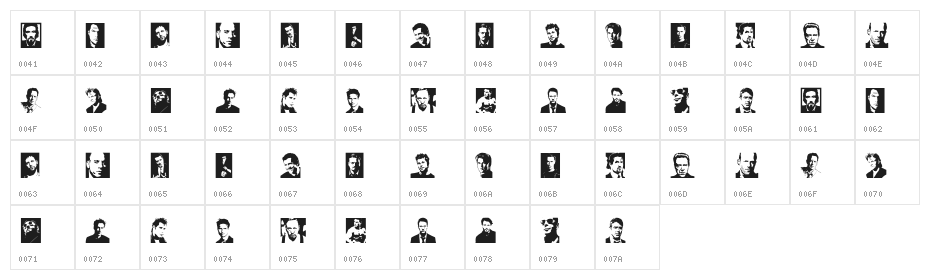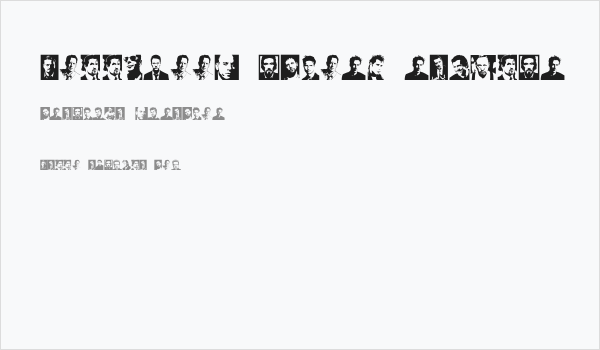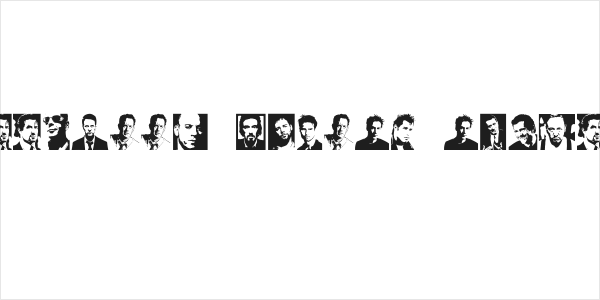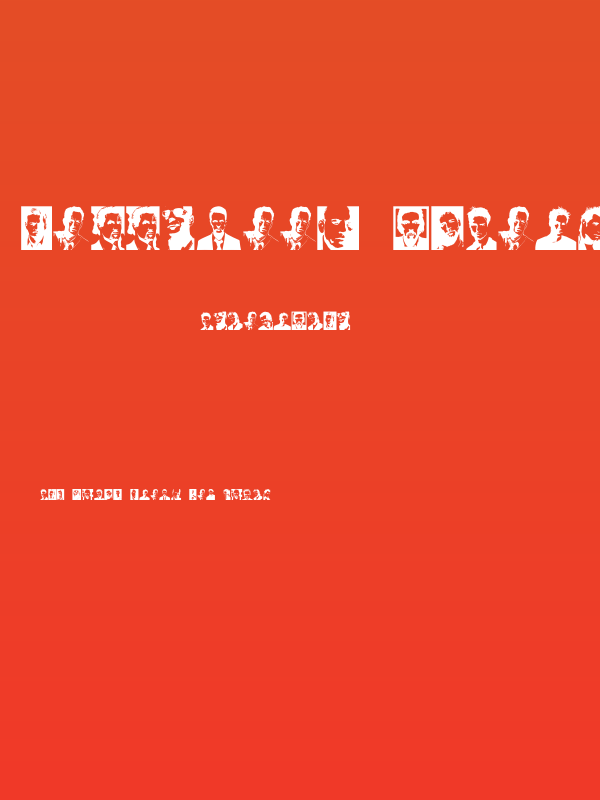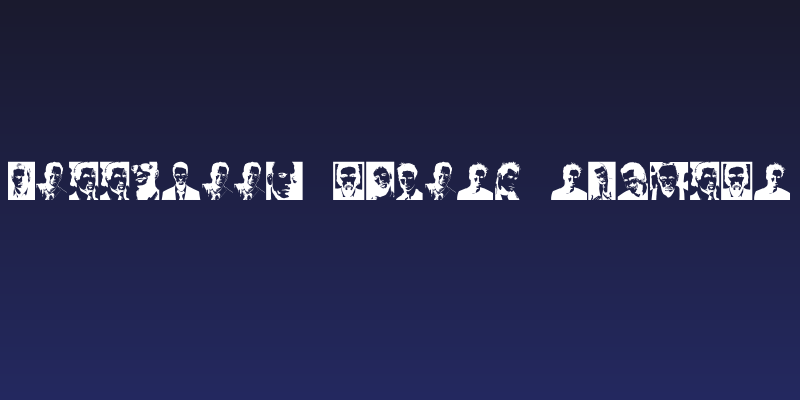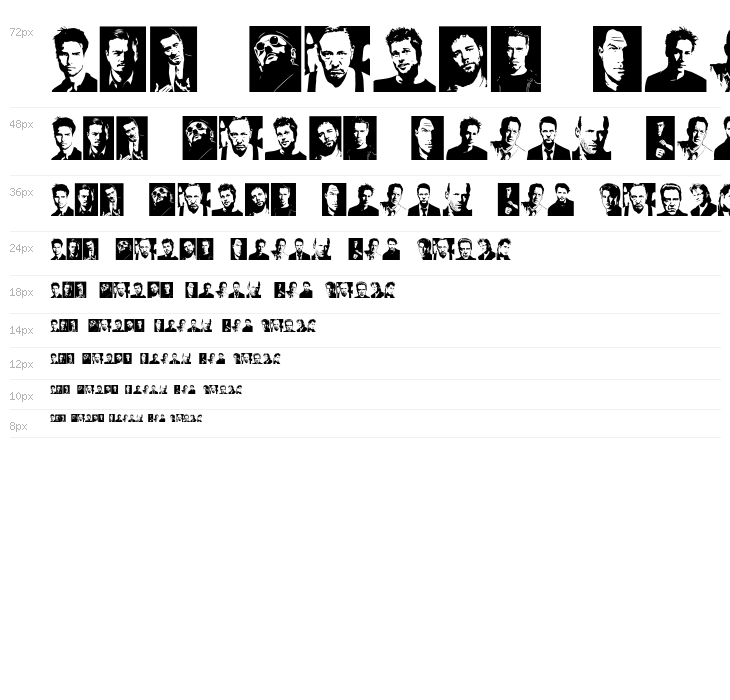
Hollywood Actors Regular Font
Hollywood Actors Regular Description
A decorative display typeface featuring high-contrast, black-and-white stencil-style portraits of various individuals in place of standard alphanumeric and symbol characters. Each glyph is a unique, detailed illustration within a rectangular frame, creating a visually striking and unconventional appearance.
Overall StyleDecorative, Artistic, Novelty
Use CaseLogos, Headlines, Posters, Themed graphics
Proposed ProjectsPosters, album covers, themed event graphics, novelty merchandise, editorial illustrations.